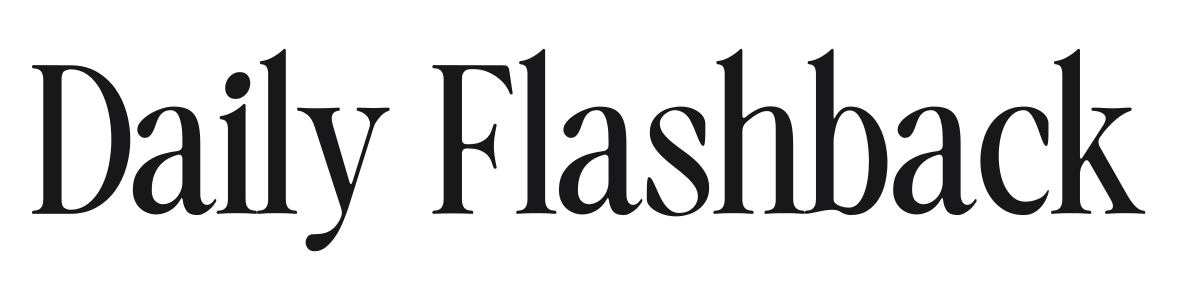
Daily Flashback
Daily Flashback is a bold Didone-style serif with extreme stroke contrast between thick stems and razor-thin hairlines. That tension gives it the commanding elegance associated with high-fashion editorial and luxury branding. At large sizes, the drama of the contrast is fully realized.